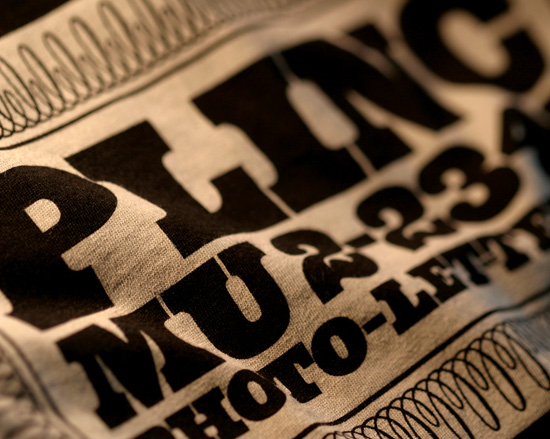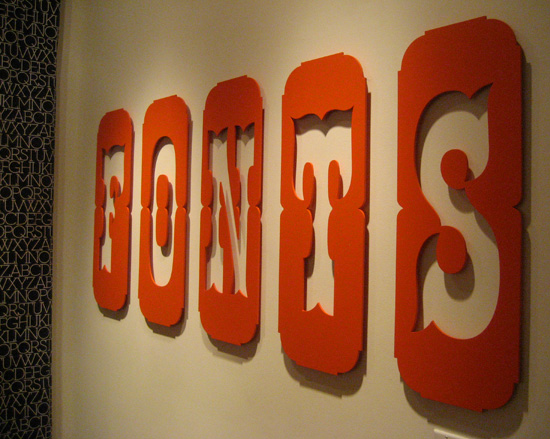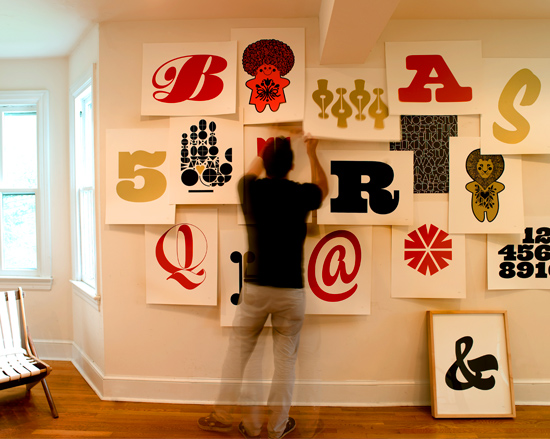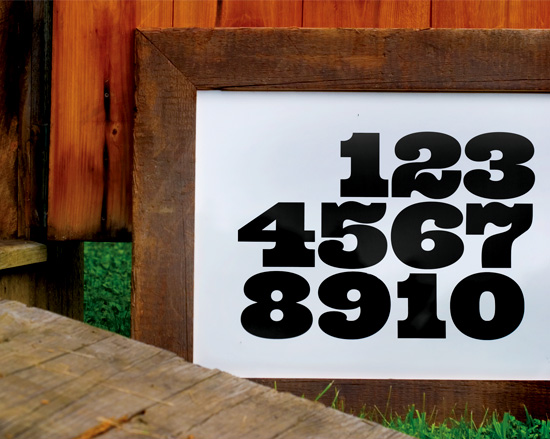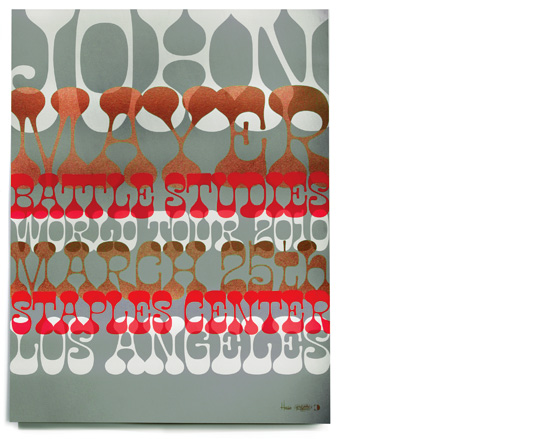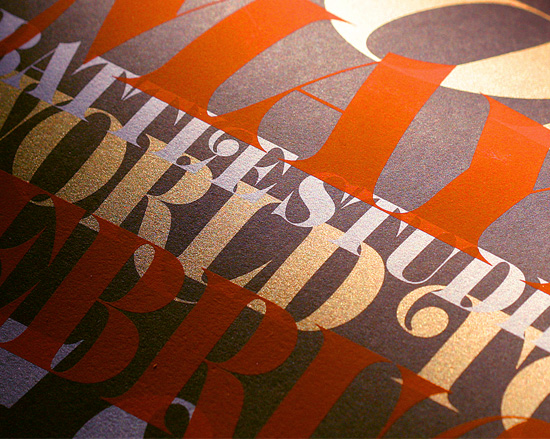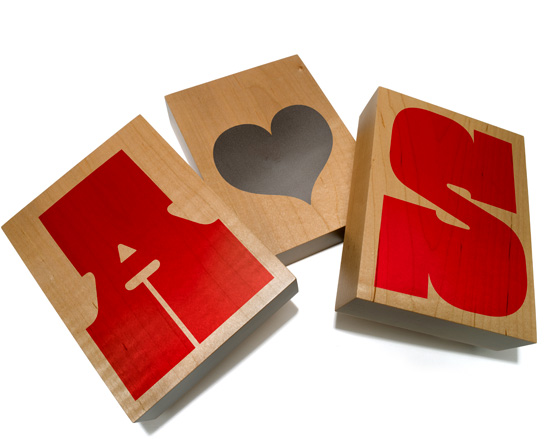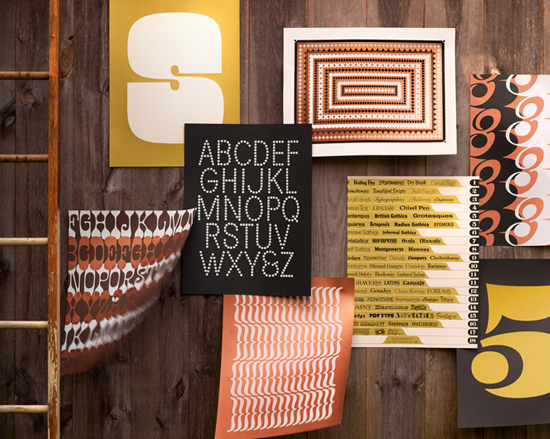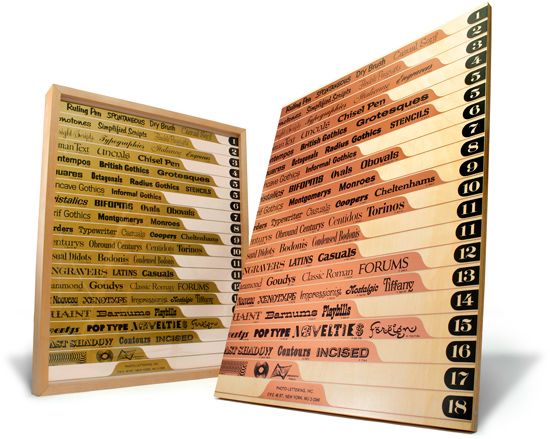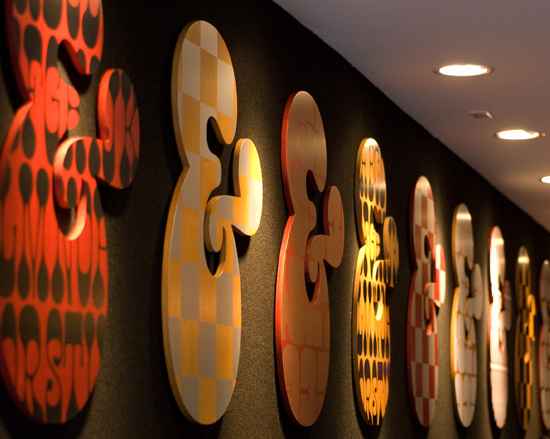
Benguiat Buffalo stamped into a tough skin of leather on Tellason’s crispy denim.
Various Photo-Lettering alphabets used for House Industries letterpressed greeting cards.
Benguiat Buffalo makes House Industries need to sell out of this series of holiday cards in a single year, or at hang on to them until the next time Christmas falls on the same date.
Chicamakomiko doesn’t hold back in a season when one is supposed to exhibit tolerance and good will toward alternate cultures.
Various Photo-Lettering alphabets used for House Industries gift wrap.
Banjo Playbill smashed into letterpressed stripes on House Industries greeting cards.
Banjo Playbill (H) West Elephant (a), Times Square (alphabet), Eames Century Modern (m), Neutraface Inline (asterisk) and Davidson Baroque (x) joint the kitchen cleanup crew with House Industries flour sack towels.
Benguiat Buffalo Freshly Pressed in plastisol from the House/Heath holiday show in 2010.
West Barnum Ultra makes the scene when bachelor parties get greasy, sudsy and violent.
Benguiat Buffalo wishes Happy Hanukkah at the House/Partners & Spade 2010 holiday show.
Benguiat Buffalo lights up Sunset Boulevard at Heath House Holiday 2010.
Various Photo-Lettering and House Industries alphabets make a 40-ton impression in basswood for the House/Partners & Spade holiday show.
Various Photo-Lettering and House Industries alphabets pressed into end grain tiles.
West Behemoth weaves pre-web intrigue with Photo-Lettering’s original Murray Hill phone number, discharge inks and ringspun cotton.
Before faxes, flatbed scanners and Facebook, West Behemoth broadcast PLINC’s Murray Hill exchange for telephone transmitted alphabetical art direction.
Benguiat Caslon tops-off PLINC alphabet-enriched sustainably-grown replenishable basswood blocks.
Child-safe lead-free non-toxic inks highlight the following Photo-Lettering alphabets: Brixen, Buffalo, Emperor Script, Hasler Circus, Tuggle, Exotique, Copeland Milo, Times Square, Behemoth, Behemoth Italic and Brodovitch Albro.
The secret underbelly of the Photo-Lettering blocks featured an illustrative Spencerian script. Unfortunately it is not possible to bring this style to photolettering.com without the yet-to-be-invented steel nib roundhand filter.
Benguiat Buffalo and Emperor Script helped usher in House Industries’s Letters & Ligatures show at Shepard Fairey’s Subliminal Gallery in 2008.
The Benguiat Buffalo full wall installation at the Letters & Ligatures show.
Times Square reversed out of lacquer and masonite at the Letters & Ligatures show.
The O’s counterspace hangs on tight in this Hasler Circus dimensional installation at the 2008 Letters & Ligatures show.
PLINC alphabetic elements commingle with assorted House Industries assets to form amalgamated compositions of screen-borne air-dried pigmentalization.
West Behemoth provides analog rendering of the worldwide numerical standard and serves as a motivational reminder that all numbers are basic conglomerations of ten simple figures.
Banjo, semi-transparent air-dried inks and David Dodde’s steady squeegee hand welcomes John Mayer to Los Angeles for his Battle Studies tour.
Benguiat Caslon forces its way through photographically-exposed silk screens for John Mayer’s New York Battle Studies whistle stop.
West Barnum Ultra makes a beautiful betrothal with House Industries’ clear lacquered maple valentype blocks from 2010’s season of love.
Shooting with Photo-Lettering alphabets is as easy as hitting the broad side of a barn, especially with a quiver full of Banjo, West Elephant, Times Square, West Emperor and a few bits from Eames Century Modern.
Photo-Lettering’s well-thumbed ingenious indexing influenced the modern web-based paradigm used on this site. Only eight-thousand or so alphabets to go!
Tuggle helped House Industries write an analog infinite loop of redundant latin ligatures for Rick Klotz’s Reserve Gallery. Banjo and West Elephant patterns keep things busy even in slow customer traffic times.
A single furniture-grade plywood Tuggle ampersand braces up before joining its friends for the long trip to West Hollywood’s Reserve Gallery.
A swashbuckling Tuggle initial cap proclaims potential wearer’s proclivities toward reinvigorated radical runes.
Tuggle has a checkered past, but even a inexperienced photolettering.com user can create simple letterformed graphics with a solid colorful footing.
Banjo’s vector outlines make infinitely scalable scales on freshly-caught hand-printed hardwood Koi.
House Industries crafts people combined reclaimed dotty pine and silvery Times Square for ichiban toro-fresh Koi sashimi.
Sticky design situations often mask simple alphabetical solutions afforded by assorted PLINC and House Industries alphabets.